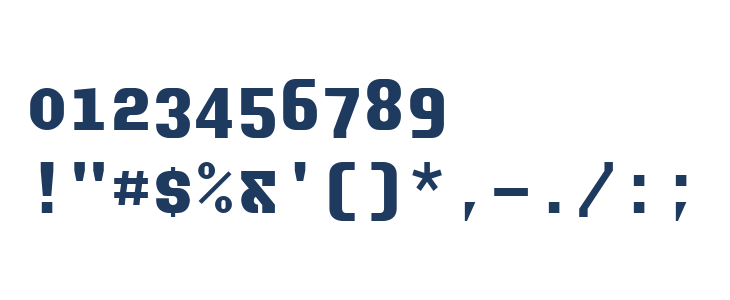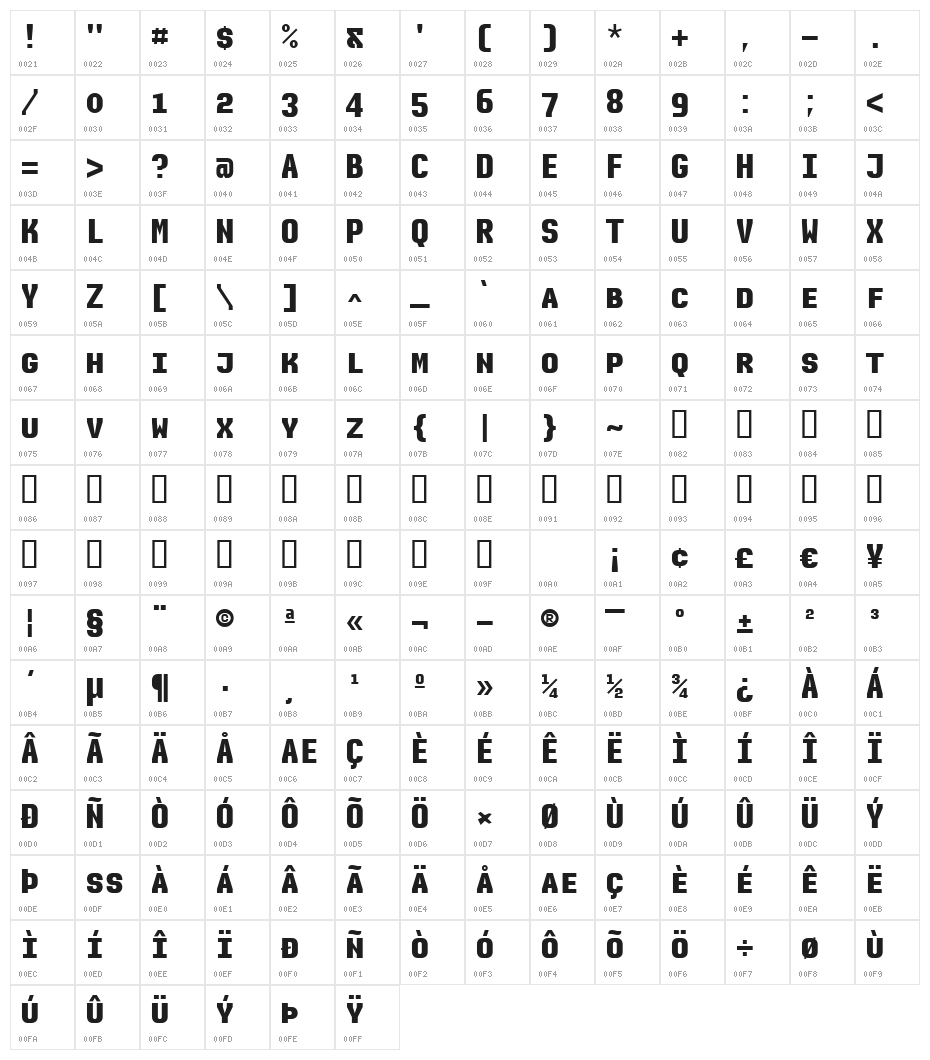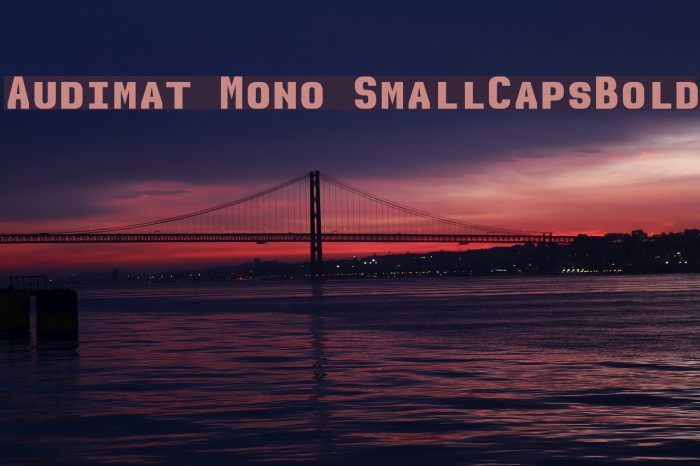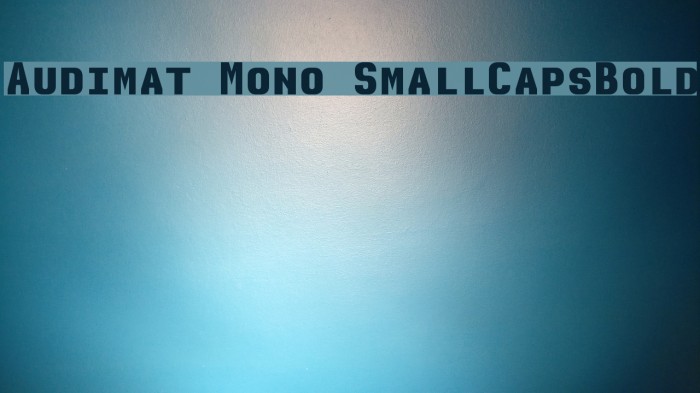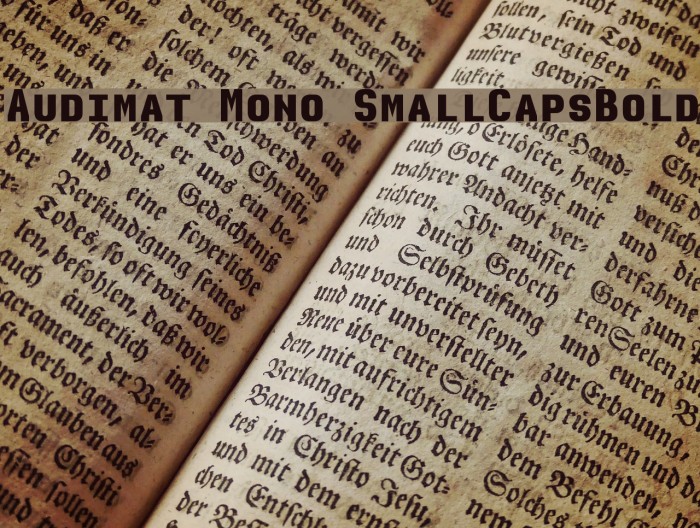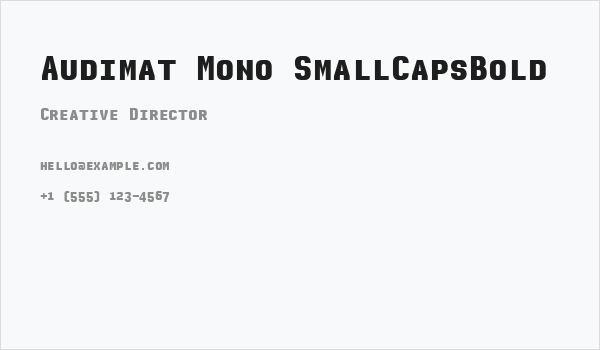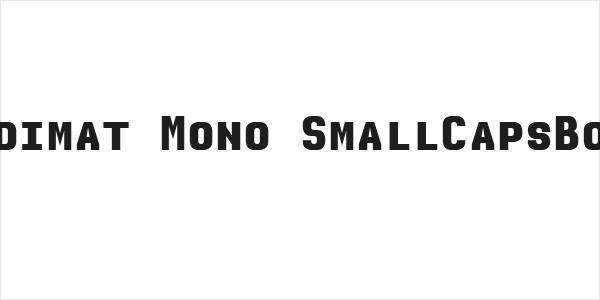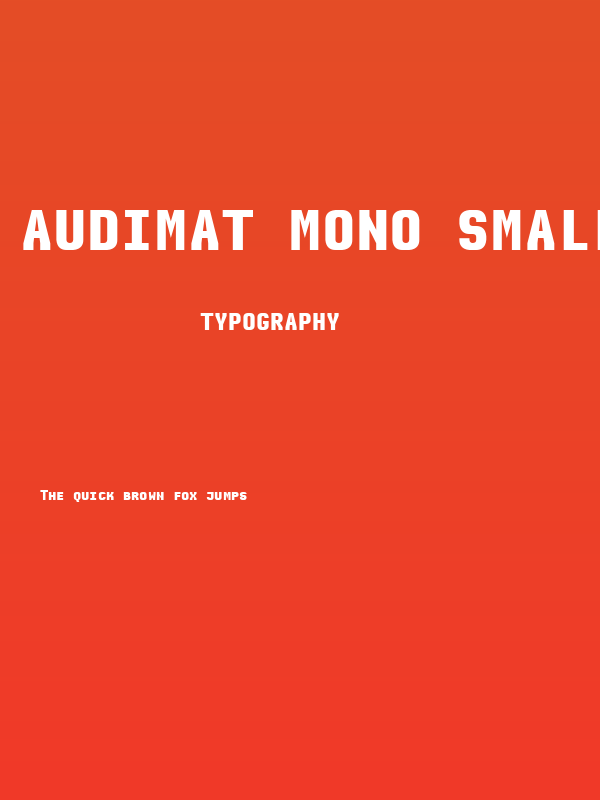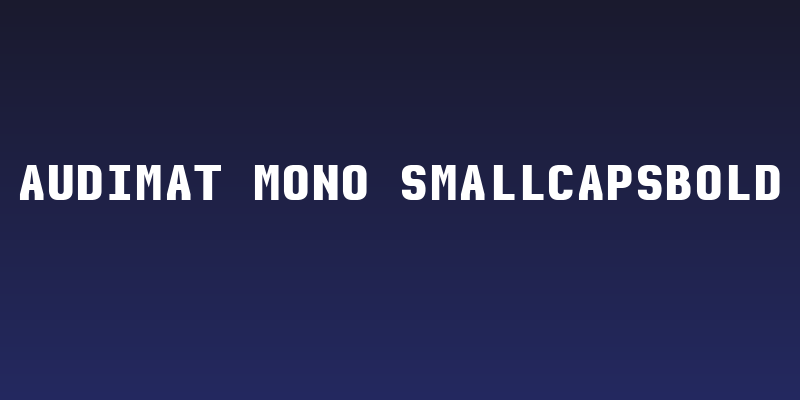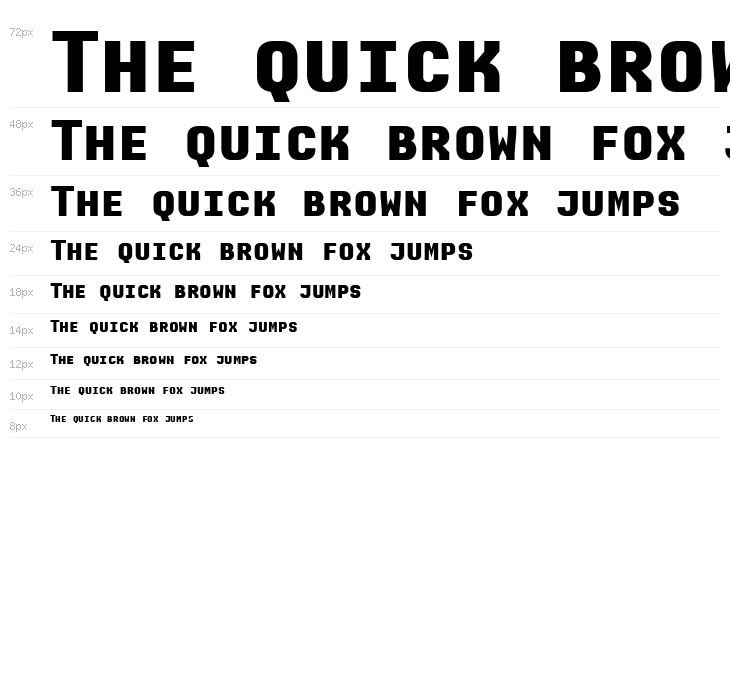
Audimat Mono SmallCapsBold Font
Audimat Mono SmallCapsBold Description
This font features a bold, monospaced design with a strong geometric structure. The characters are uniform in width, providing a consistent and orderly appearance. The uppercase letters are prominent and assertive, while the lowercase letters maintain the same width, creating a cohesive look across different text sizes. The numerals are clear and easily distinguishable, making them suitable for data presentation. Special characters are well-defined, enhancing the font's versatility. The overall style is modern and functional, ideal for projects requiring clarity and precision.
| Use Case | Headlines, Coding, Technical documentation |
| Proposed Projects | Ideal for coding environments, technical documentation, and modern branding projects. |